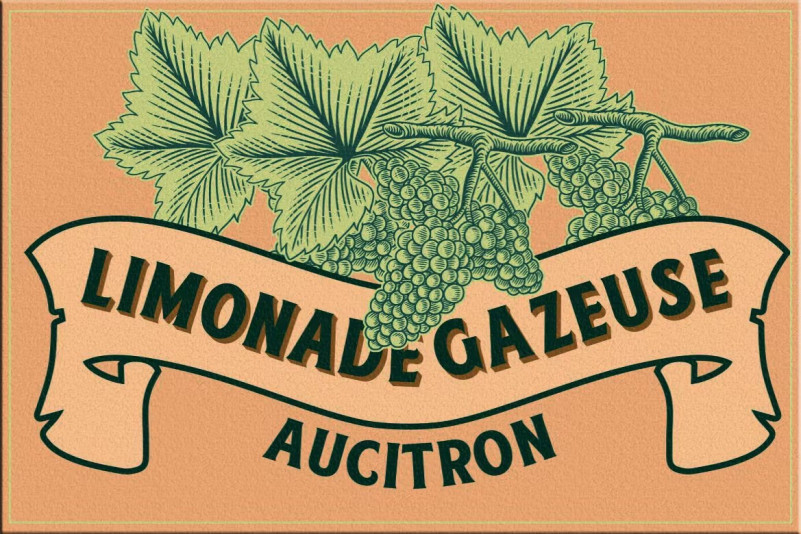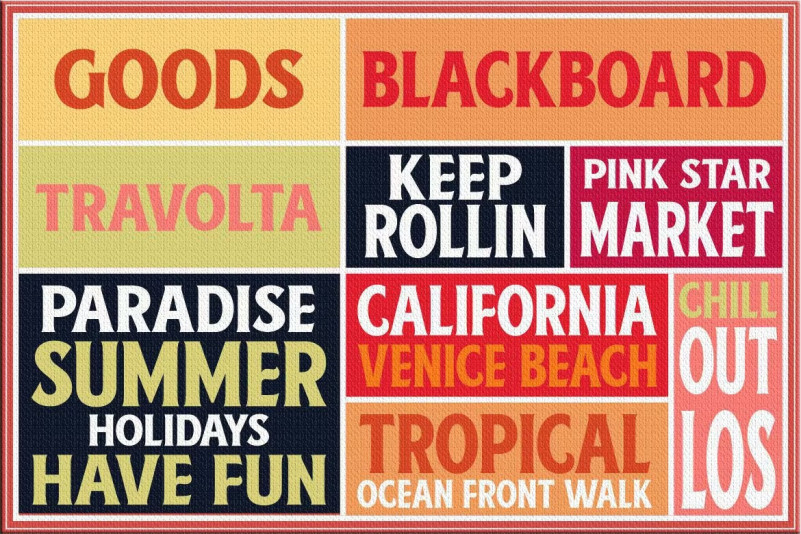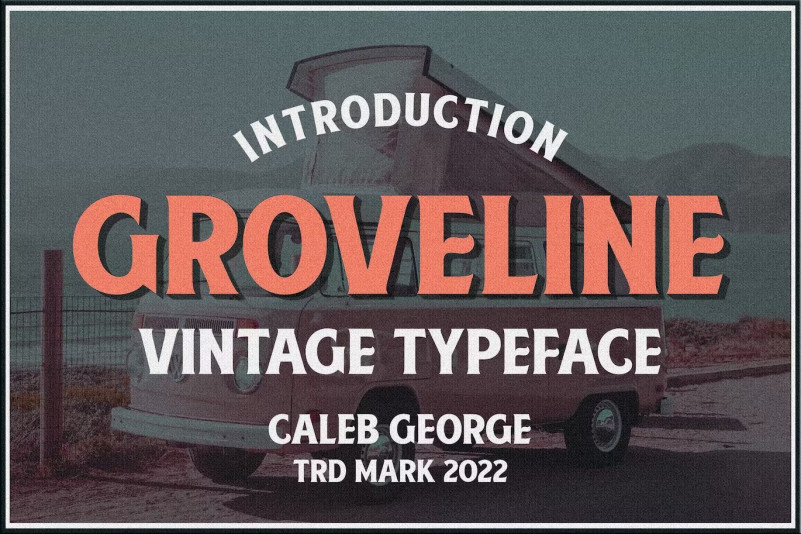
Groveline Font
Hello Everyone, introduce our new product, Groveline Serif Font is a vintage and unique font with a trendy vintage and retro feel. This font is perfect for posters to t-shirts, labels, cards, full illustrations, packaging and more.